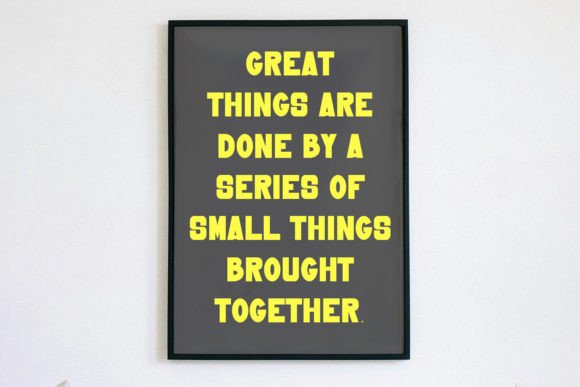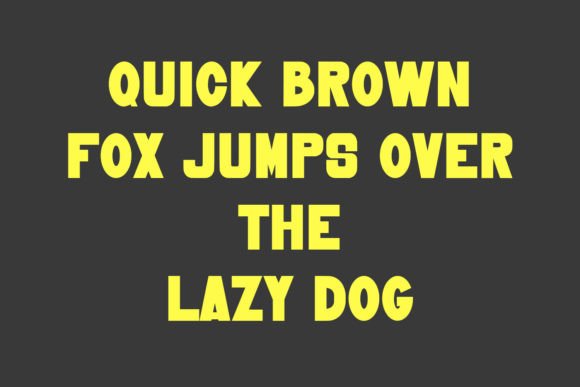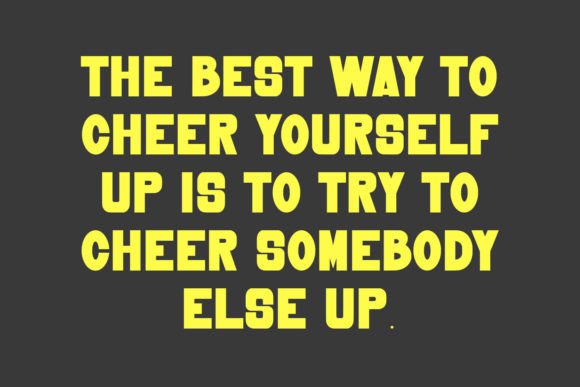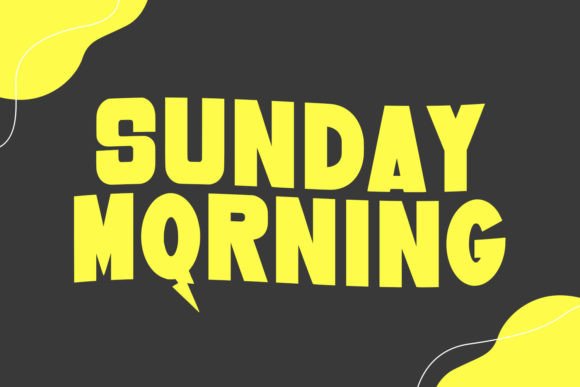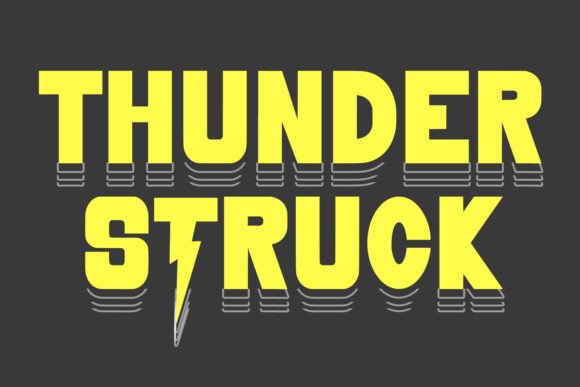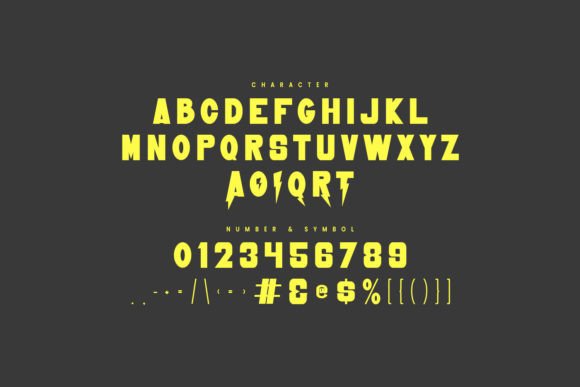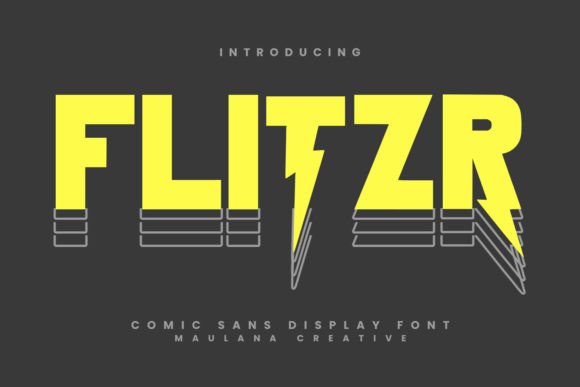
Introducing Flitzr Flash Font: Add a Touch of Whimsy to Your Designs
Are you tired of using the same old fonts in your designs? Look no further than Flitzr Flash Font, a fun and bold font that’s perfect for adding a touch of whimsy to any project. With its playful design and bold strokes, Flitzr Flash Comic Sans is sure to make your text pop!
The Perfect Font for Eye-Catching Titles and Headings
Flitzr Flash Font is specifically designed to grab attention and make a statement. Its bold and lively curves make it perfect for eye-catching titles and headings, adding a touch of fun and playfulness to any design. Whether you’re working on a poster, flyer, or invitation, Flitzr Flash Comic Sans is the perfect choice.
What Makes Flitzr Flash Font So Special?
So, what sets Flitzr Flash Font apart from other fonts? Here are just a few things that make it special:
- Playful Design: Flitzr Flash Font has a playful design that’s sure to add a touch of whimsy to any project. Its bold strokes and lively curves make it perfect for designs that need a bit of personality.
- Bold and Eye-Catching: With its bold strokes and lively curves, Flitzr Flash Comic Sans is sure to make your text pop! It’s the perfect choice for designs that need to grab attention.
- Versatile: Flitzr Flash Font is versatile and can be used in a variety of designs, from posters and flyers to invitations and more.
How to Use Flitzr Flash Font in Your Designs
Using Flitzr Flash Font in your designs is easy! Here are a few tips to get you started:
- Pair it with Other Fonts: Flitzr Flash Font pairs well with other fonts, so don’t be afraid to experiment with different combinations. Try pairing it with a clean sans-serif font for a bold and modern look.
- Use it for Headings: Flitzr Flash Font is perfect for headings and titles, so use it to add a touch of personality to your design.
- Experiment with Colors: Flitzr Flash Font looks great in a variety of colors, so don’t be afraid to experiment with different colors and gradients.
Why Designers and Crafters Love Flitzr Flash Font
Designers and crafters love Flitzr Flash Font for a variety of reasons. Here are just a few:
- Easy to Read: Despite its playful design, Flitzr Flash Font is easy to read, making it perfect for designs that need to communicate a message.
- Fun and Playful: Flitzr Flash Font adds a touch of fun and playfulness to any design, making it perfect for designs that need to stand out.
- High-Quality: Flitzr Flash Font is a high-quality font that’s designed to look great in any design.
| Font Name | Flitzr Flash Font |
In conclusion, Flitzr Flash Font is a fun and bold font that’s perfect for adding a touch of whimsy to any design. With its playful design, bold strokes, and lively curves, it’s sure to make your text pop! Whether you’re a designer or crafter, Flitzr Flash Comic Sans is a great choice for any project.
Get Ready to Add a Touch of Whimsy to Your Designs!
Key Features of Flitzr Flash Font
- Font Type: Comic Sans
- Font Style: Bold
- Font Size: Variable
- Language: English
Flitzr Flash Font in Action
Flitzr Flash Font can be used in a variety of designs, including:
- Posters: Use Flitzr Flash Font to create eye-catching posters that grab attention.
- Flyers: Add a touch of whimsy to your flyers with Flitzr Flash Font.
- Invitations: Use Flitzr Flash Font to create fun and playful invitations that set the tone for any event.
Tips and Tricks for Using Flitzr Flash Font
Here are a few tips and tricks for using Flitzr Flash Font:
- Use it Sparingly: While Flitzr Flash Font is fun and playful, it can be overwhelming if used too much. Use it sparingly to add a touch of personality to your design.
- Experiment with Colors: Flitzr Flash Font looks great in a variety of colors, so don’t be afraid to experiment with different colors and gradients.
- Pair it with Other Fonts: Flitzr Flash Font pairs well with other fonts, so don’t be afraid to experiment with different combinations.